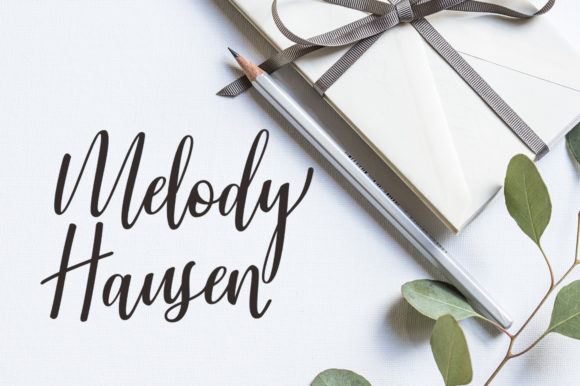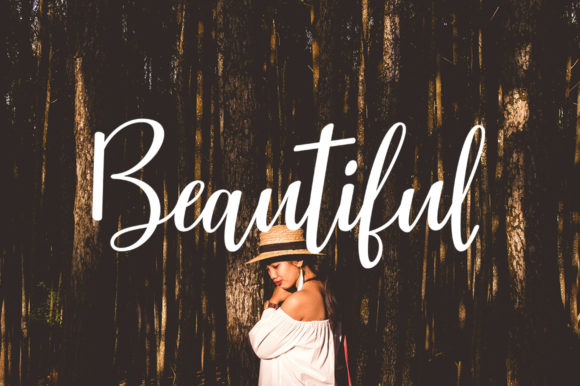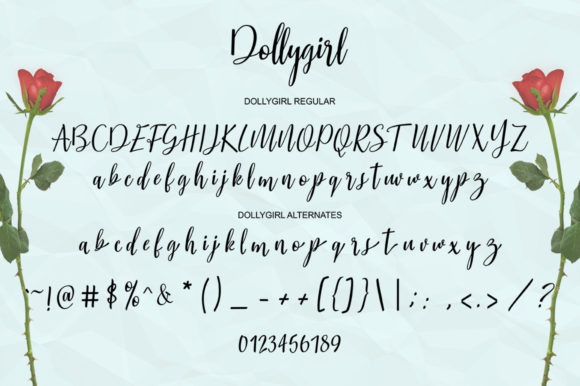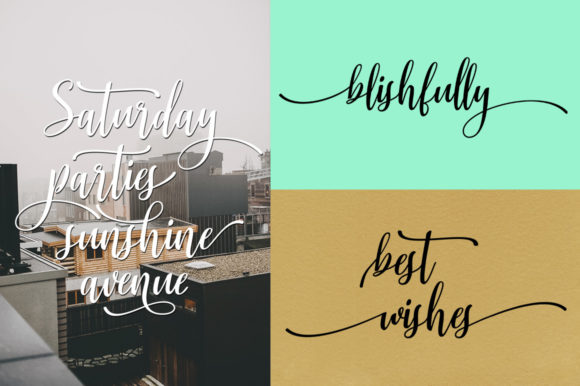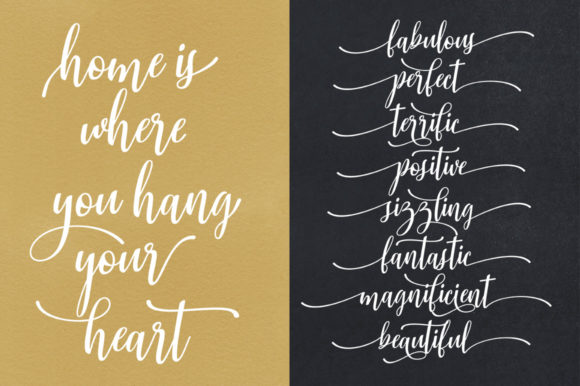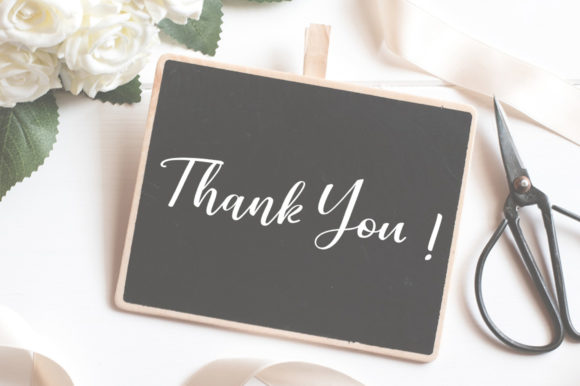
Introducing the Dollygirl Font: Elevate Your Designs with a Trendy and Feminine Touch
In the world of typography, fonts play a crucial role in conveying the tone and aesthetic of a design. For designers and crafters looking to add a touch of elegance and modernity to their projects, the Dollygirl Font is an excellent choice. This new modern script font is designed to bring a trendy and feminine style to various designs, making it perfect for a wide range of applications.
What Makes the Dollygirl Font Special?
The Dollygirl Font stands out from other script fonts due to its unique irregular baseline. This distinctive feature gives the font a hand-drawn, organic feel that adds a touch of whimsy and charm to any design. The irregular baseline also helps to create a sense of movement and fluidity, making the font perfect for designs that require a dynamic and playful touch.
Perfect for Feminine and Trendy Designs
The Dollygirl Font is specifically designed to cater to designers and crafters who specialize in creating feminine and trendy designs. The font’s elegant and cursive style makes it ideal for projects that require a touch of sophistication and glamour. Whether you’re working on wedding invitations, thank you cards, or greeting cards, the Dollygirl Font is sure to elevate your designs and make them stand out.
Versatile Applications
One of the best things about the Dollygirl Font is its versatility. The font can be used for a wide range of applications, including:
- Quotes and social media graphics
Why Choose the Dollygirl Font?
With so many fonts available, why choose the Dollygirl Font? Here are just a few reasons:
- Unique and modern design: The Dollygirl Font features a fresh and modern design that’s sure to make your designs stand out.
- Feminine and elegant style: The font’s elegant and cursive style makes it perfect for designs that require a touch of sophistication and glamour.
- Easy to read: Despite its ornate style, the Dollygirl Font is easy to read, making it perfect for body text and captions.
- High-quality and versatile: The font is designed to be versatile and can be used for a wide range of applications.
Tips for Using the Dollygirl Font
To get the most out of the Dollygirl Font, here are a few tips:
- Pair with a sans-serif font: Pair the Dollygirl Font with a sans-serif font to create a beautiful contrast and add visual interest to your design.
- Use for headlines and titles: The Dollygirl Font is perfect for headlines and titles, where its elegant and cursive style can shine.
- Experiment with colors and textures: Don’t be afraid to experiment with different colors and textures to add depth and interest to your design.
The Dollygirl Font is a beautiful and modern script font that’s perfect for designers and crafters looking to add a touch of elegance and femininity to their designs. With its unique irregular baseline and elegant style, this font is sure to elevate your designs and make them stand out. Whether you’re working on wedding invitations, thank you cards, or logos, the Dollygirl Font is an excellent choice.